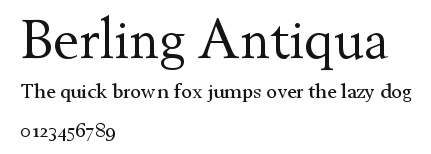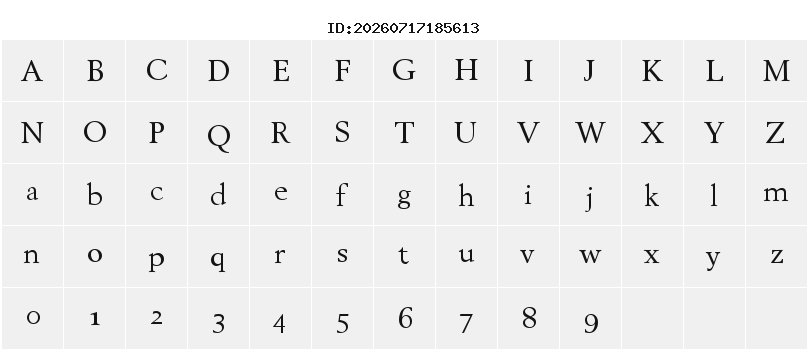
• Font Name: Berling Antiqua
• Designer: Karl Erik Forsberg
• Manufacturer: Verbum AB
• Description: Berling was designed by Swedish calligrapher and typographer Karl Erik Forsberg and issued in 1951 by the Berlingska Stilgjuteriet foundry of Lund. The design features of Berling lend itself to minimum interruption in the flow of reading, making it an ideal choice for book setting.